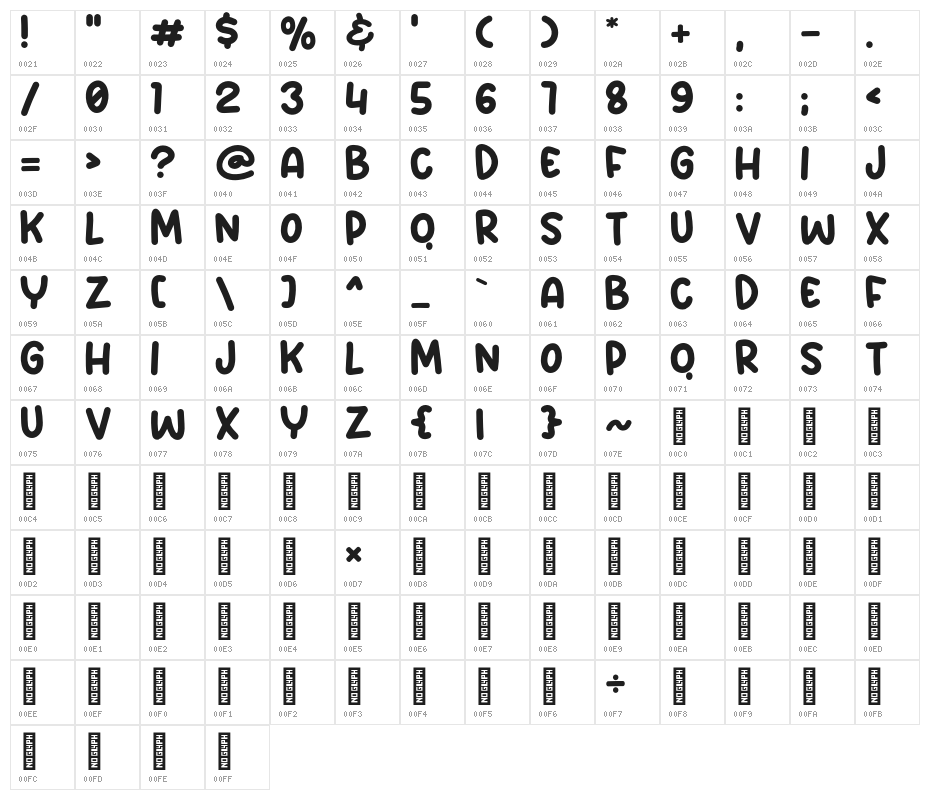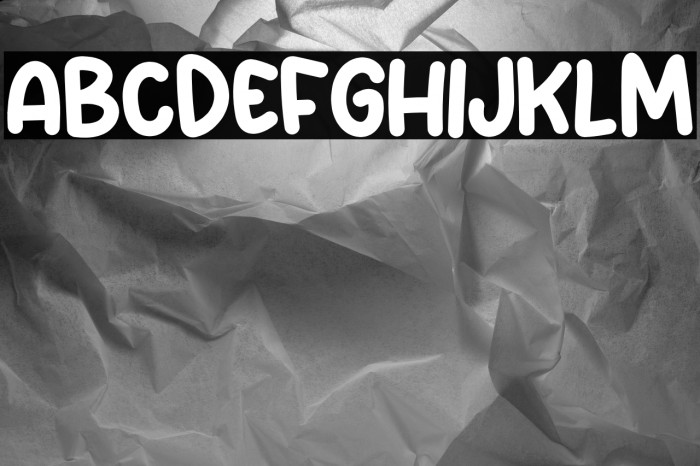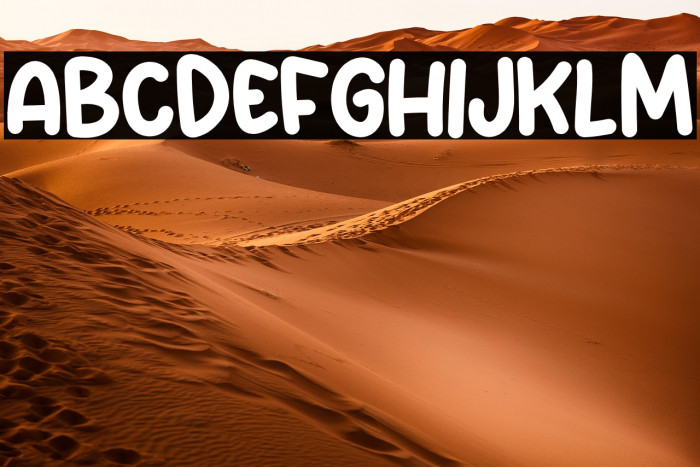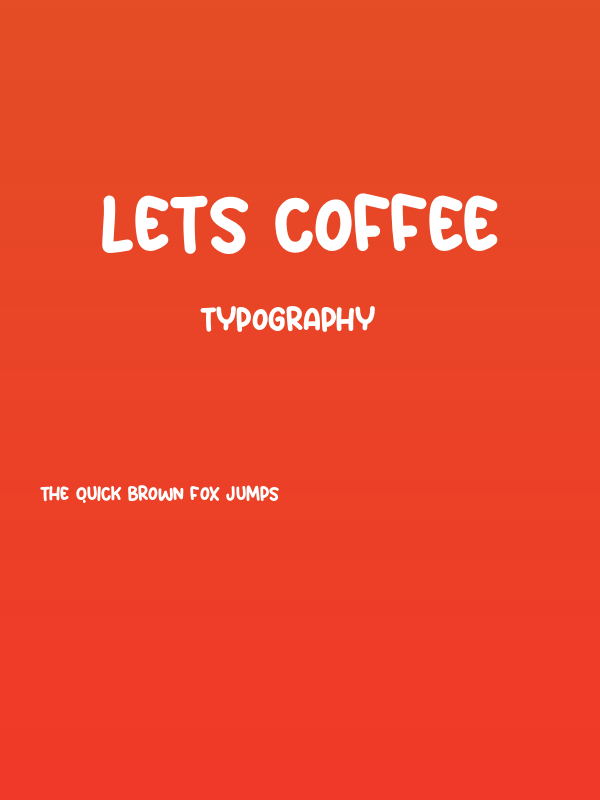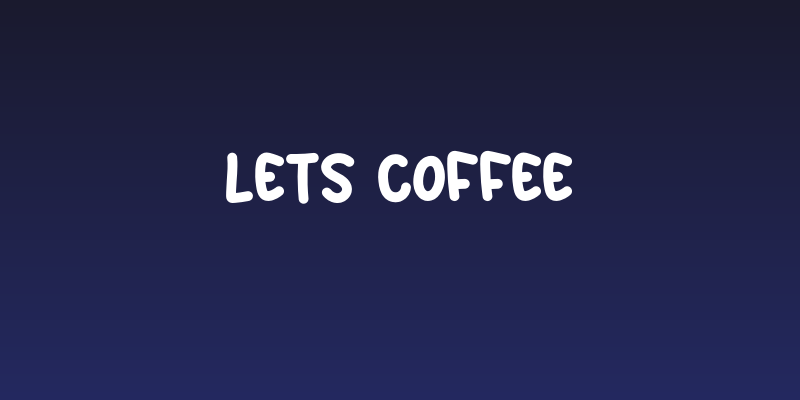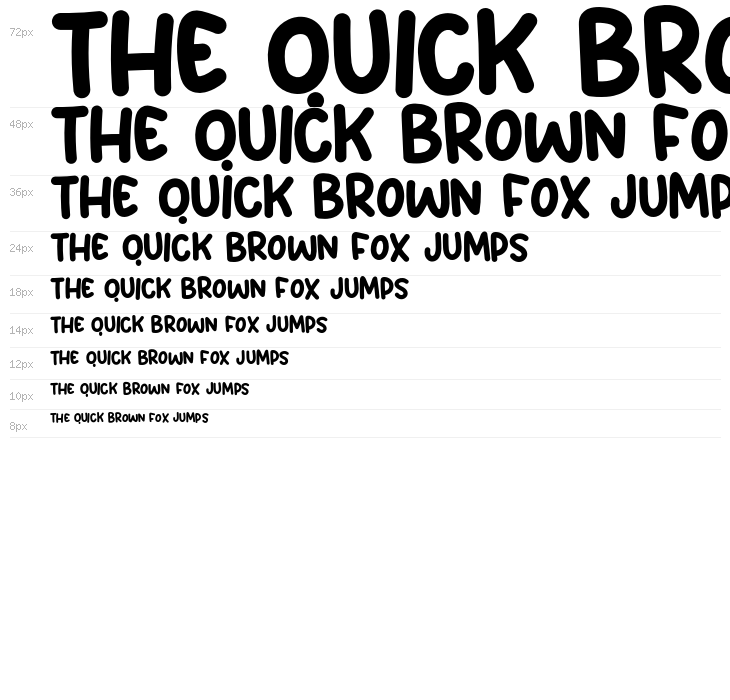
Lets Coffee Font
Lets Coffee Description
This playful and bold font features rounded edges and a hand-drawn aesthetic, giving it a friendly and approachable feel. The characters are uniformly thick, with a consistent stroke width that adds to its boldness. The letters are slightly tilted, adding a dynamic and informal touch. The numbers and special characters maintain the same playful style, ensuring consistency across all elements. This font is perfect for projects that require a fun and engaging look, such as children's books, playful branding, or casual invitations.
| Proposed Projects | Ideal for children's books, playful branding, casual invitations, and any project needing a fun, informal touch. |